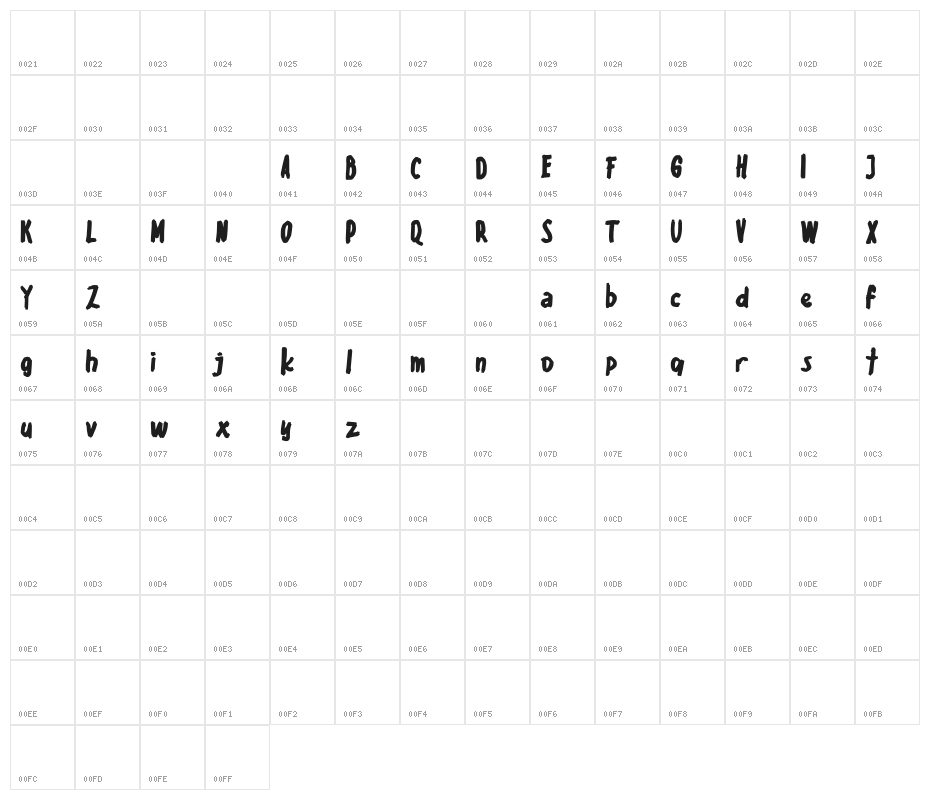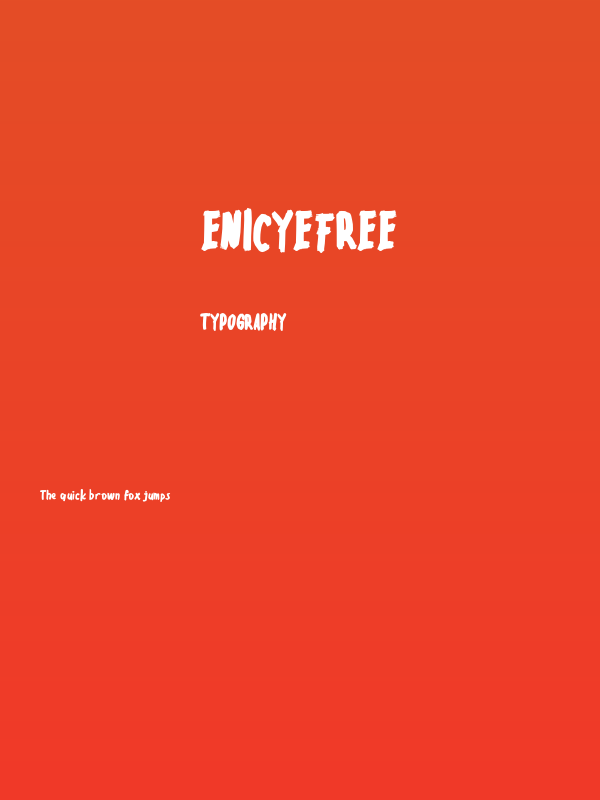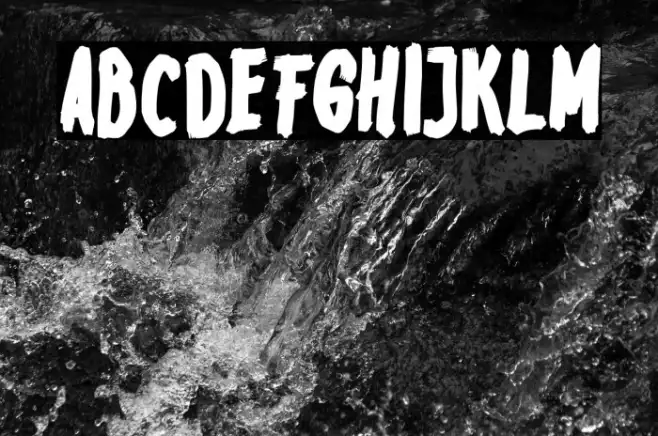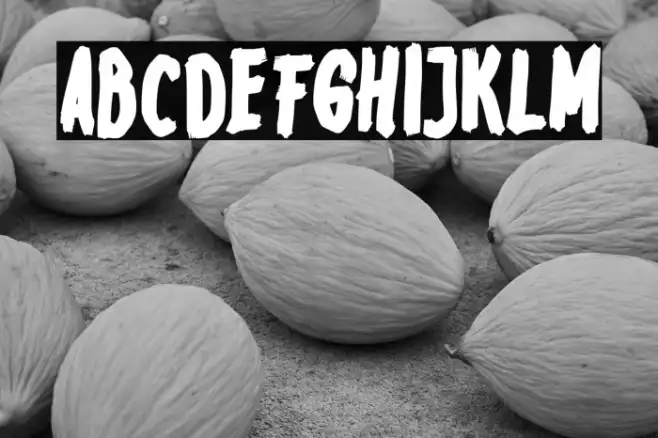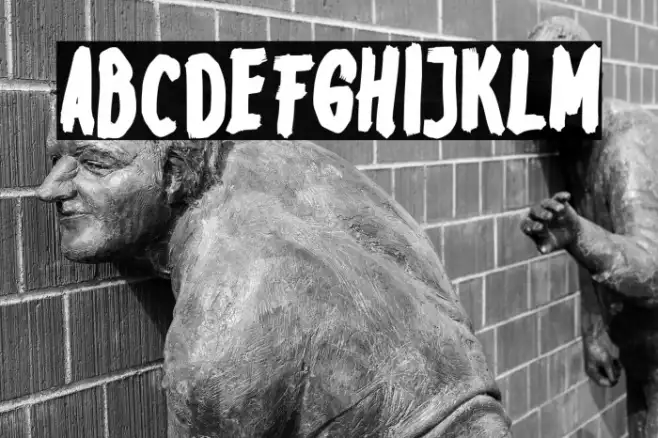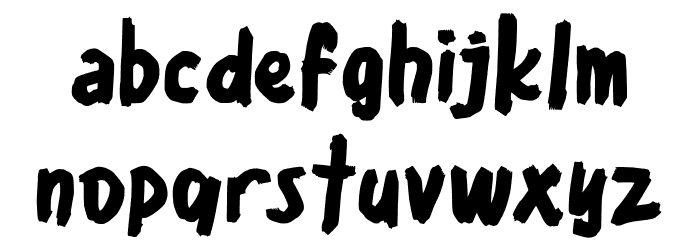
EnicyeFREE Font
EnicyeFREE Description
This font features a bold and expressive style with a hand-painted appearance. The characters are irregular and dynamic, giving a sense of movement and energy. The strokes are thick and uneven, adding to the handcrafted feel. The uppercase and lowercase letters maintain a consistent style, with a playful and artistic flair. This font is well-suited for projects that require a personal touch or a creative, informal vibe. The overall look is both modern and artistic, making it ideal for eye-catching designs.
| Overall Style | Modern, Artistic |
| Proposed Projects | Ideal for posters, branding, packaging, and creative projects that need a personal, artistic touch. |